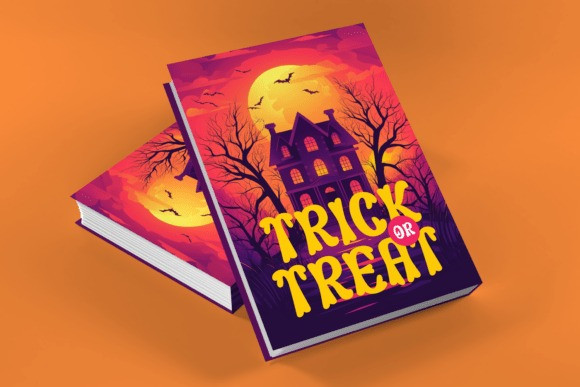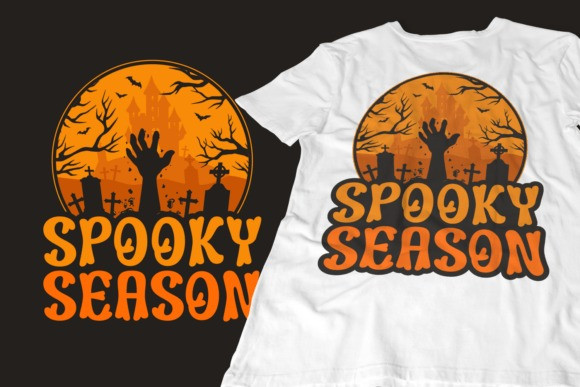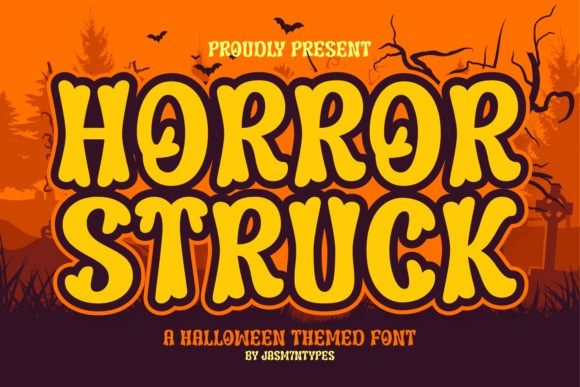
Horror Struck Font
Horror Struck Font, a display font that boasts an array of intriguing styles. This eccentric typeface embodies the spirit of Halloween, spooky and scary, perfect for creating captivating Halloween party invitations or ghost stories. From haunted house signage to zombie apocalypse survival kits, “Horror Struck” lends an eerie vibe. It is also adept at narrating witch tales and crafting blood-curdling ‘Boo!’ messages.